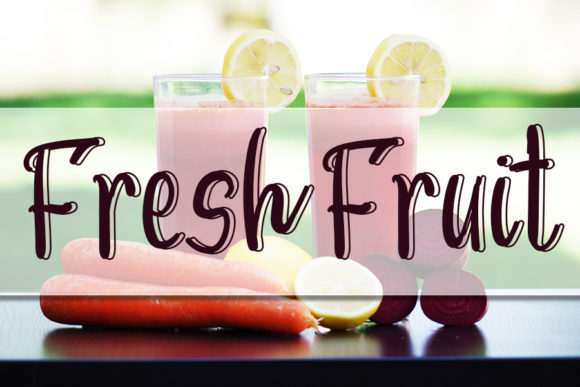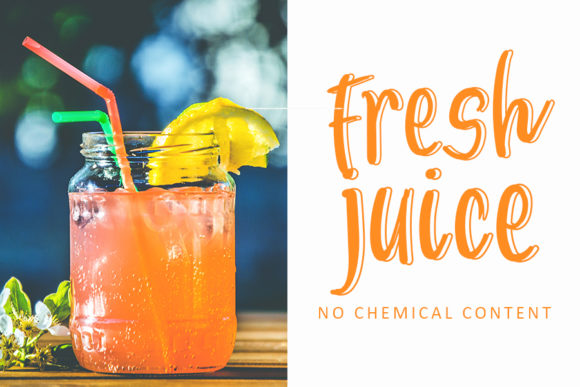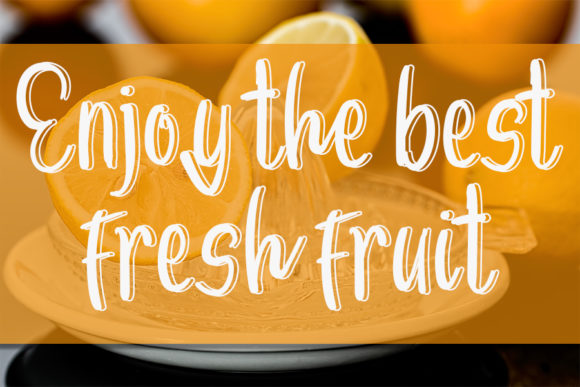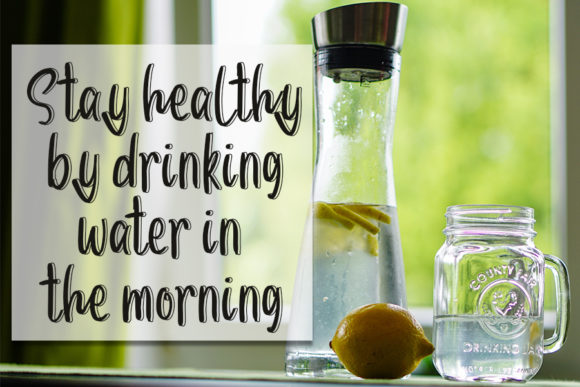
Lemon Juice Font
About Lemon Juice Font
Lemon Juice is an incredibly distinct yet casual handwritten font. It looks lovely on wedding invitations, thank you cards, quotes, greeting cards, logos, business cards and every other design which needs a handwritten touch.